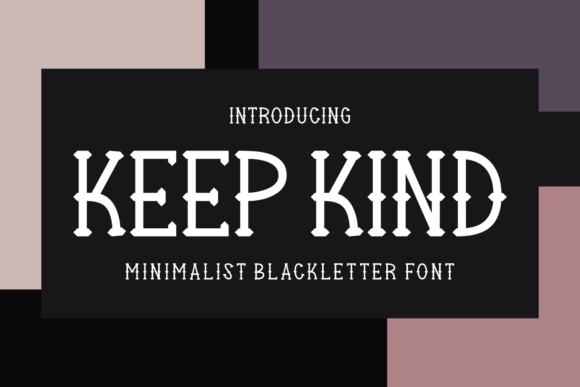
Introducing Keep Kind Font, the epitome of modern elegance and creative expression. This captivating blackletter font, created by the talented team at Creative Fabrica Fonts, is poised to revolutionize your design projects with its unparalleled charm and versatility.
With Keep Kind, typography reaches new heights of sophistication and creativity. Its sleek and minimalist design instantly captivates the eye, making it the perfect choice for those seeking to make a bold statement. Whether you're working on posters, product packaging, advertisements, t-shirts, websites, banners, or any other creative endeavor, this font will effortlessly elevate your work to new levels of excellence.
Unlock a world of endless possibilities with Keep Kind's extensive versatility. Its unique style seamlessly blends tradition with modernity, allowing you to add a touch of timeless elegance to any project. Let your imagination run wild as you explore the countless ways this font can bring your ideas to life.
But it's not just about aesthetics; Keep Kind is also a powerful tool for effective communication. Its carefully crafted letterforms ensure optimal readability, allowing your message to shine through effortlessly. Whether you're aiming to evoke emotion, convey a powerful message, or simply capture attention, this font is your ultimate ally.
Embrace the power of Keep Kind Font and watch as your designs come alive with unparalleled beauty and impact. Elevate your creative game and leave a lasting impression on your audience. Experience the magic of this Best Font For Typography and let it become an integral part of your design arsenal.